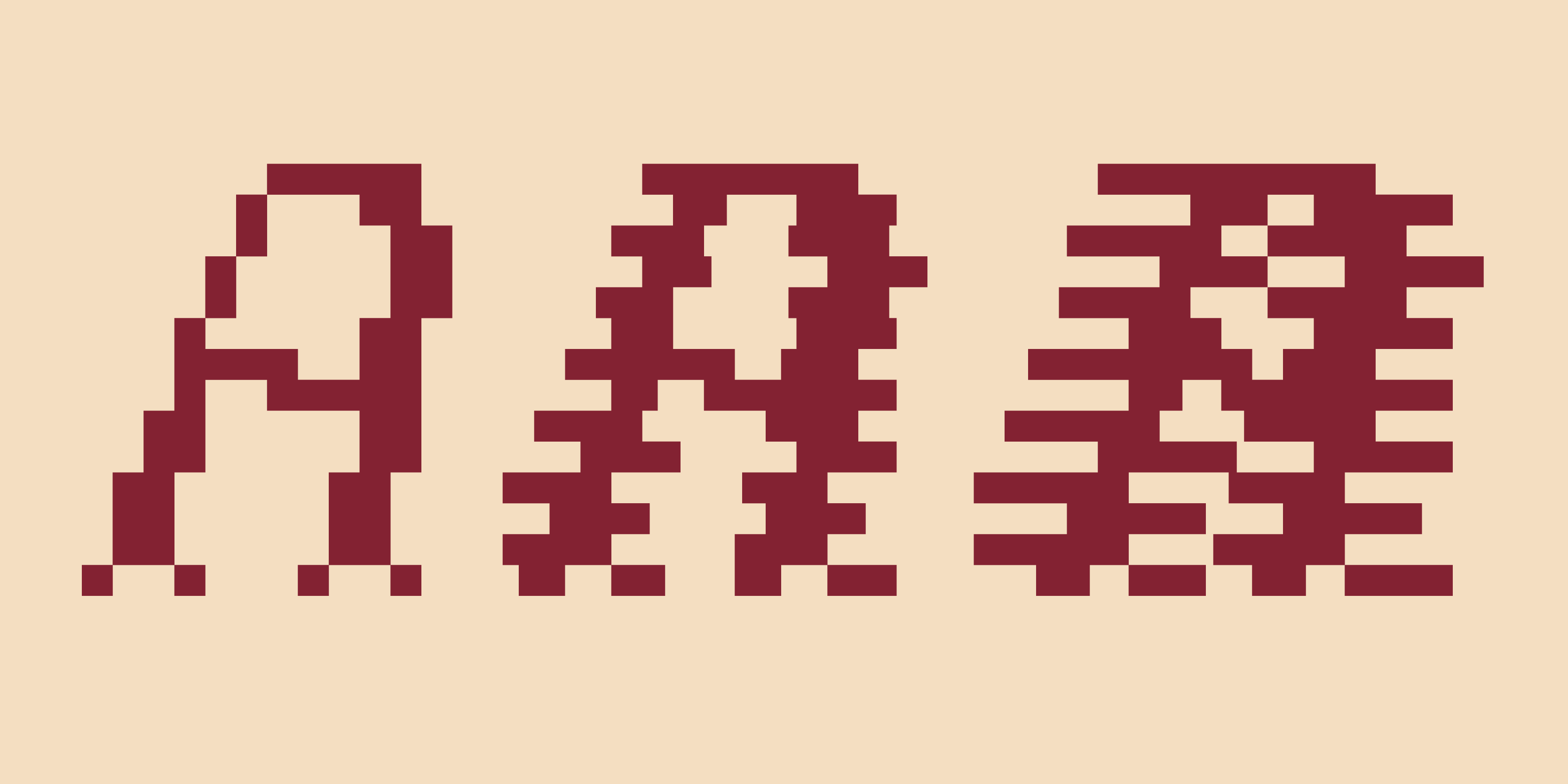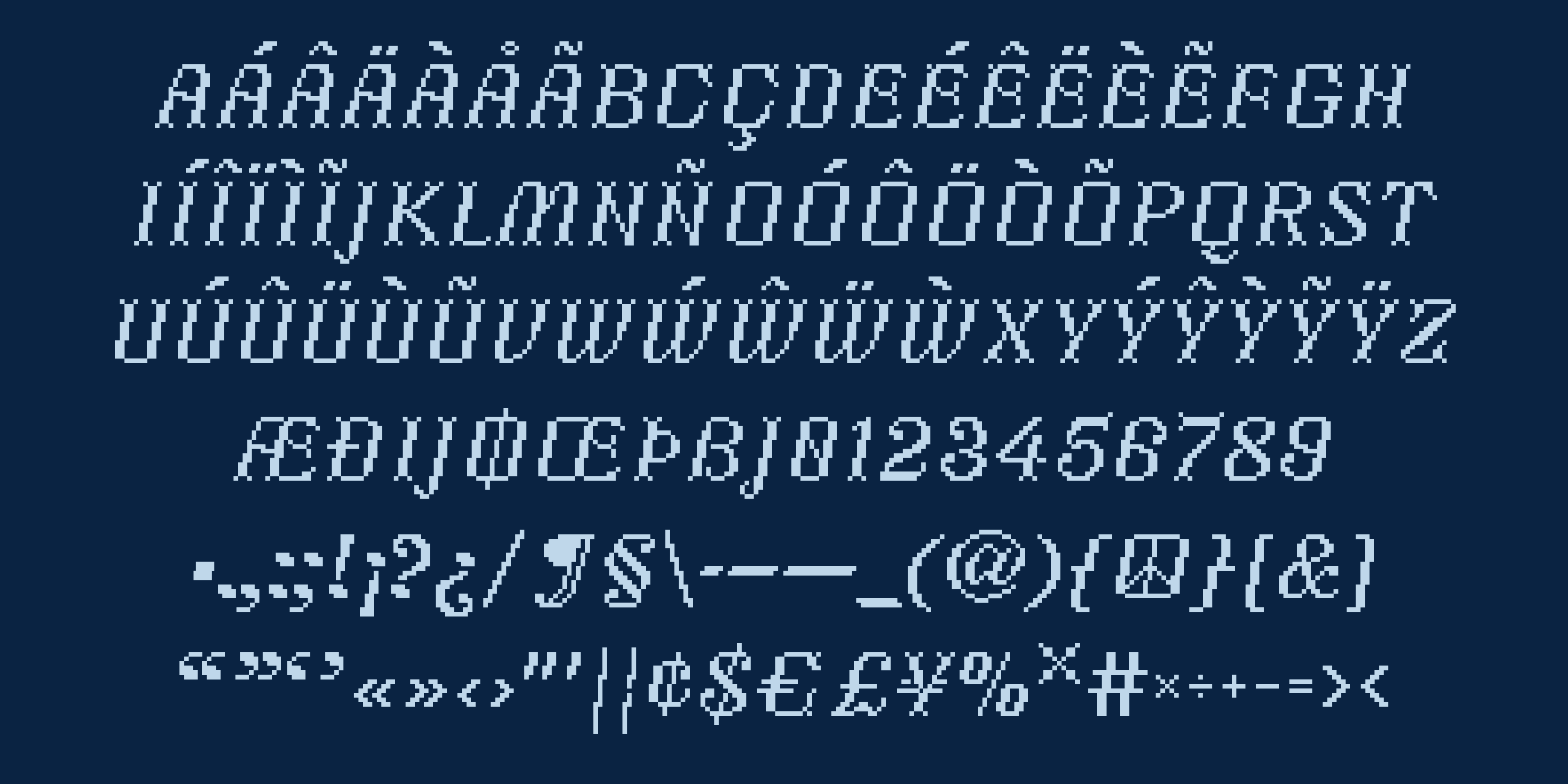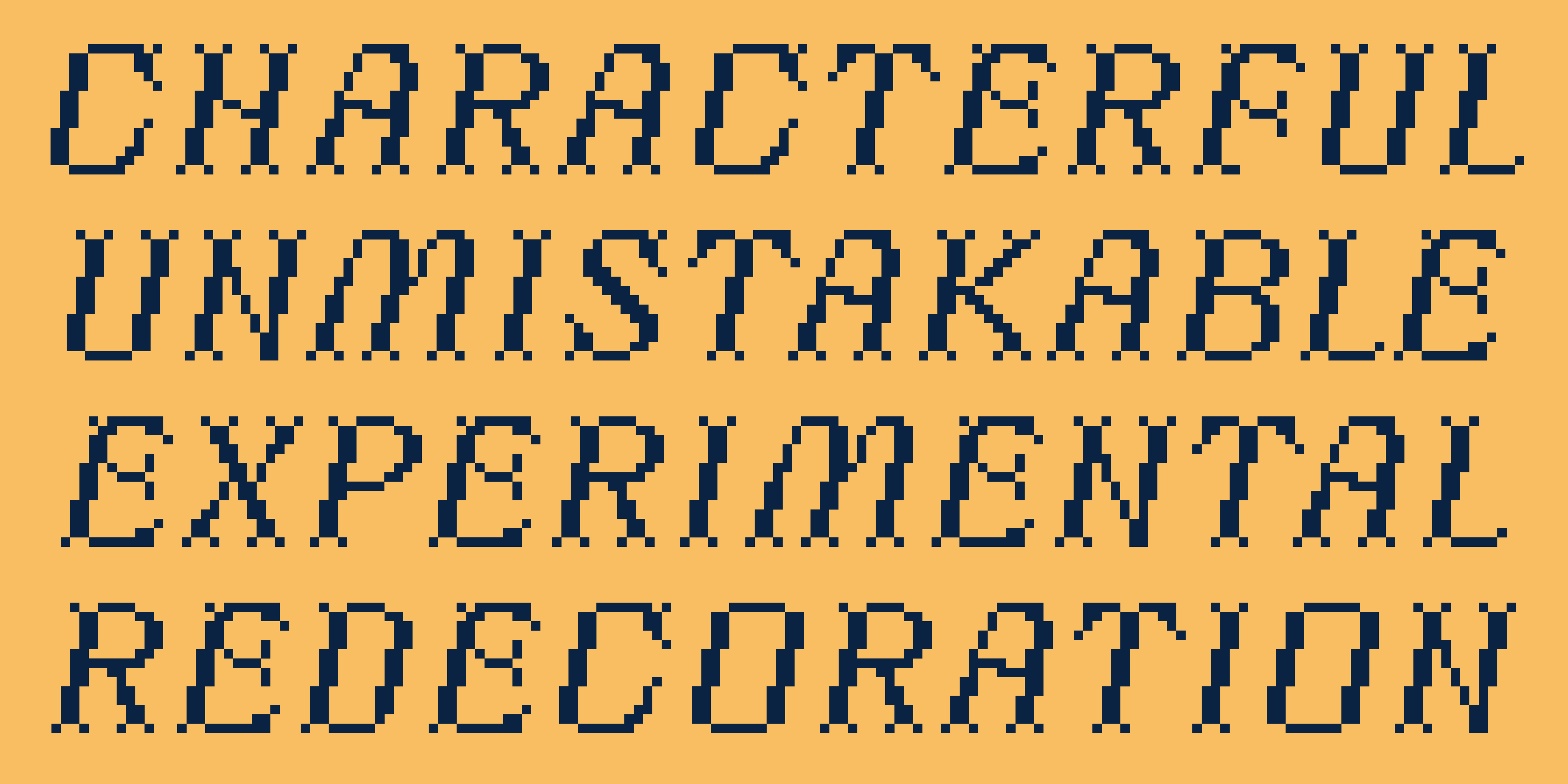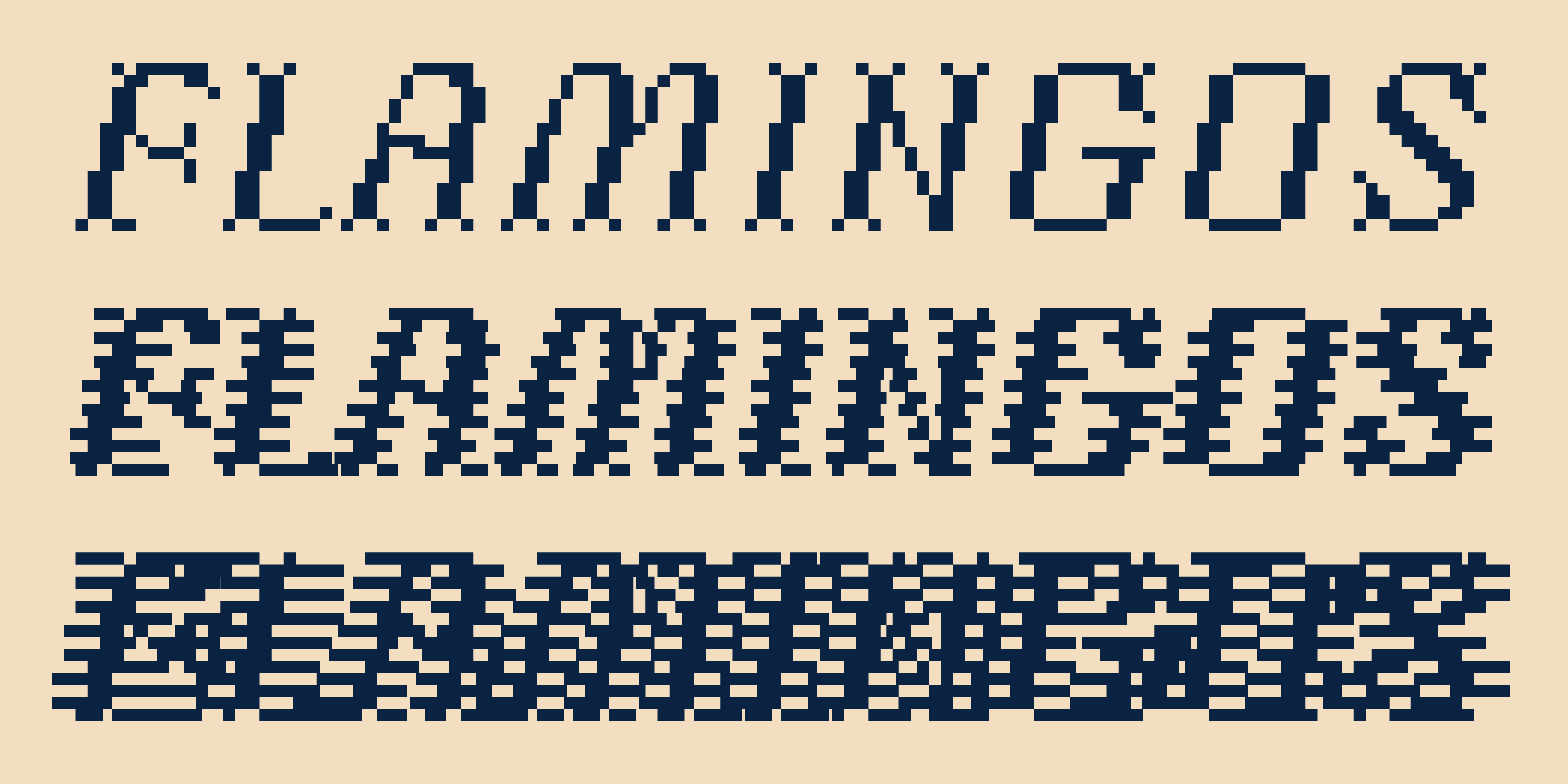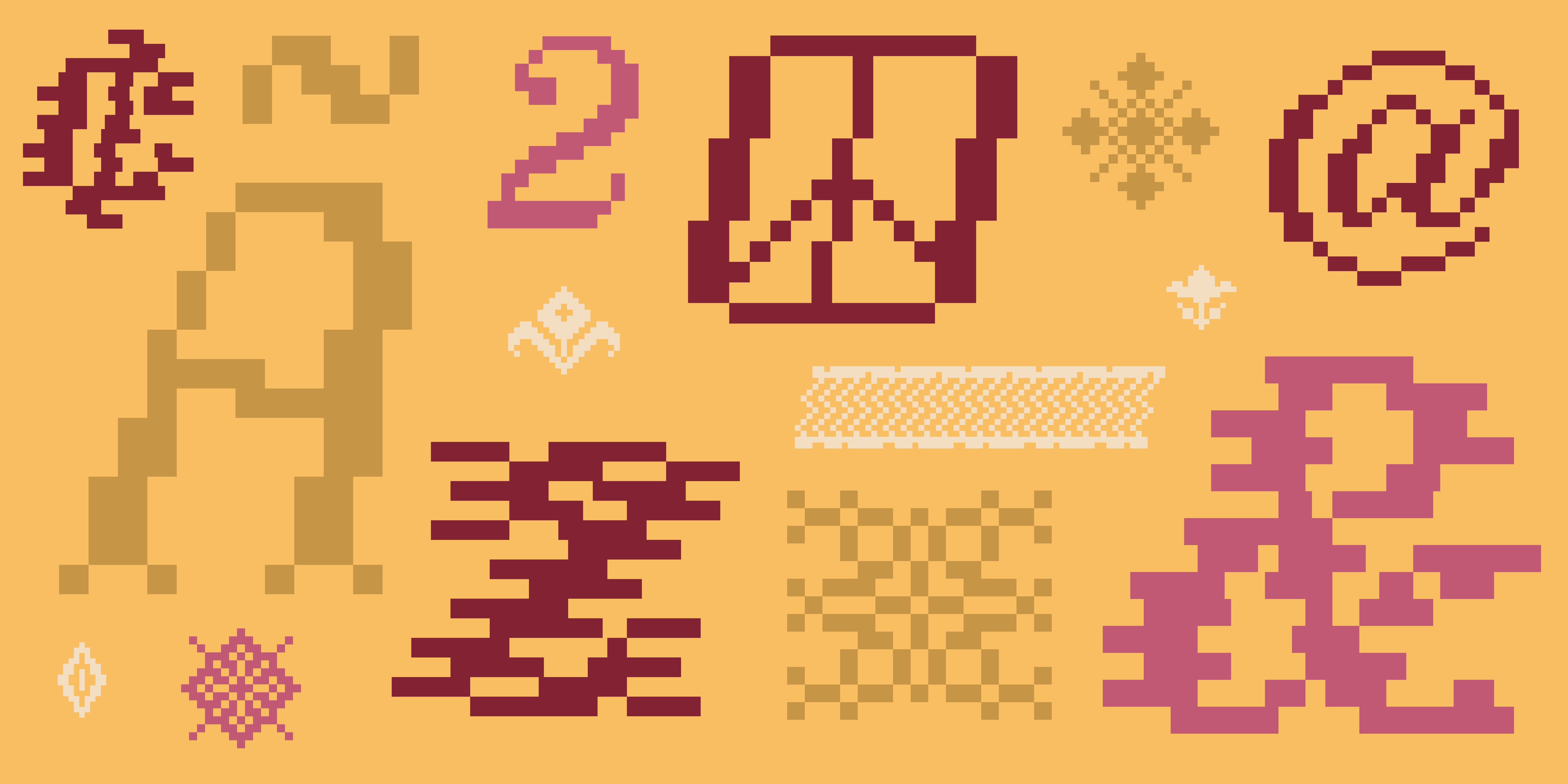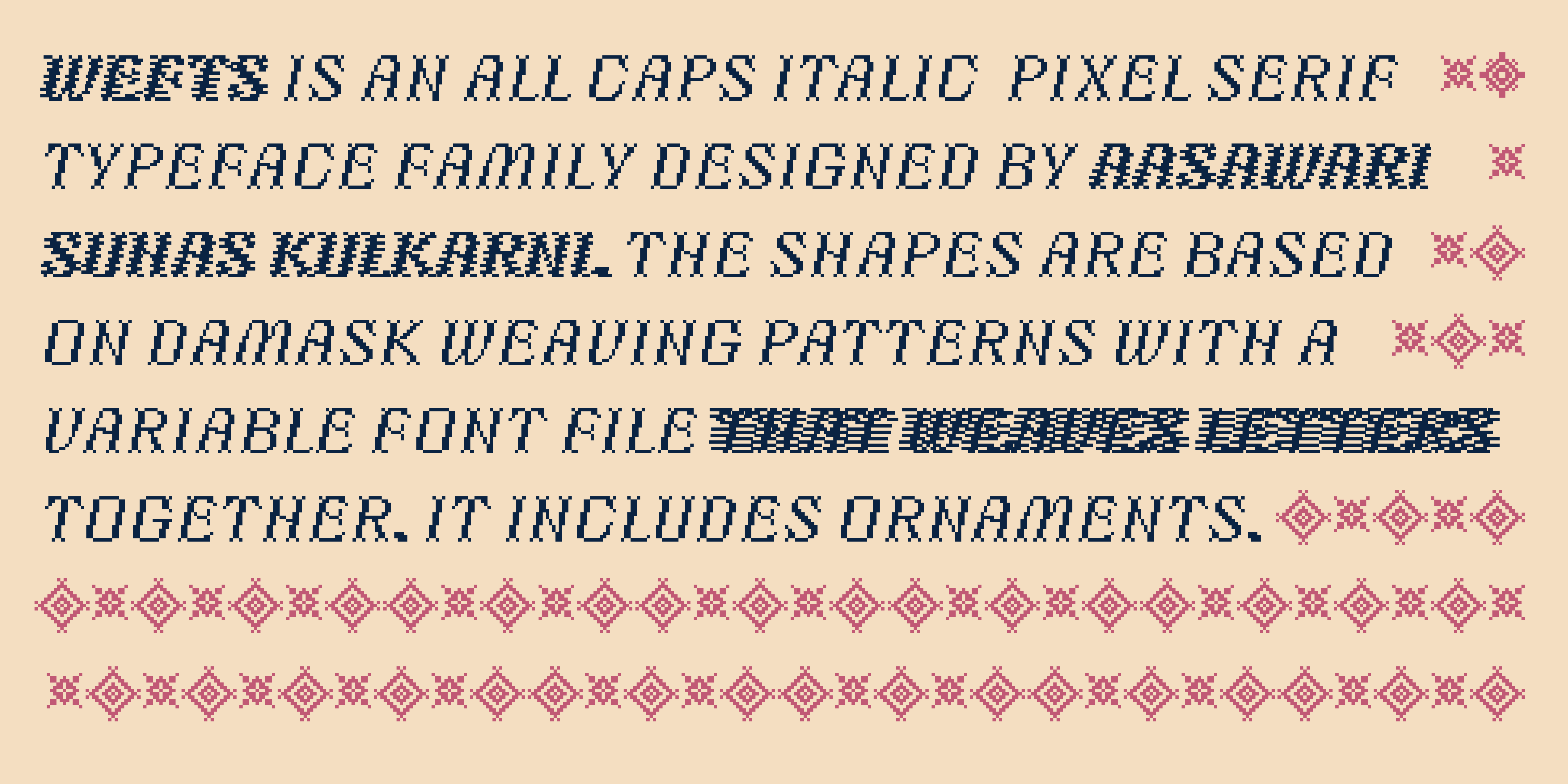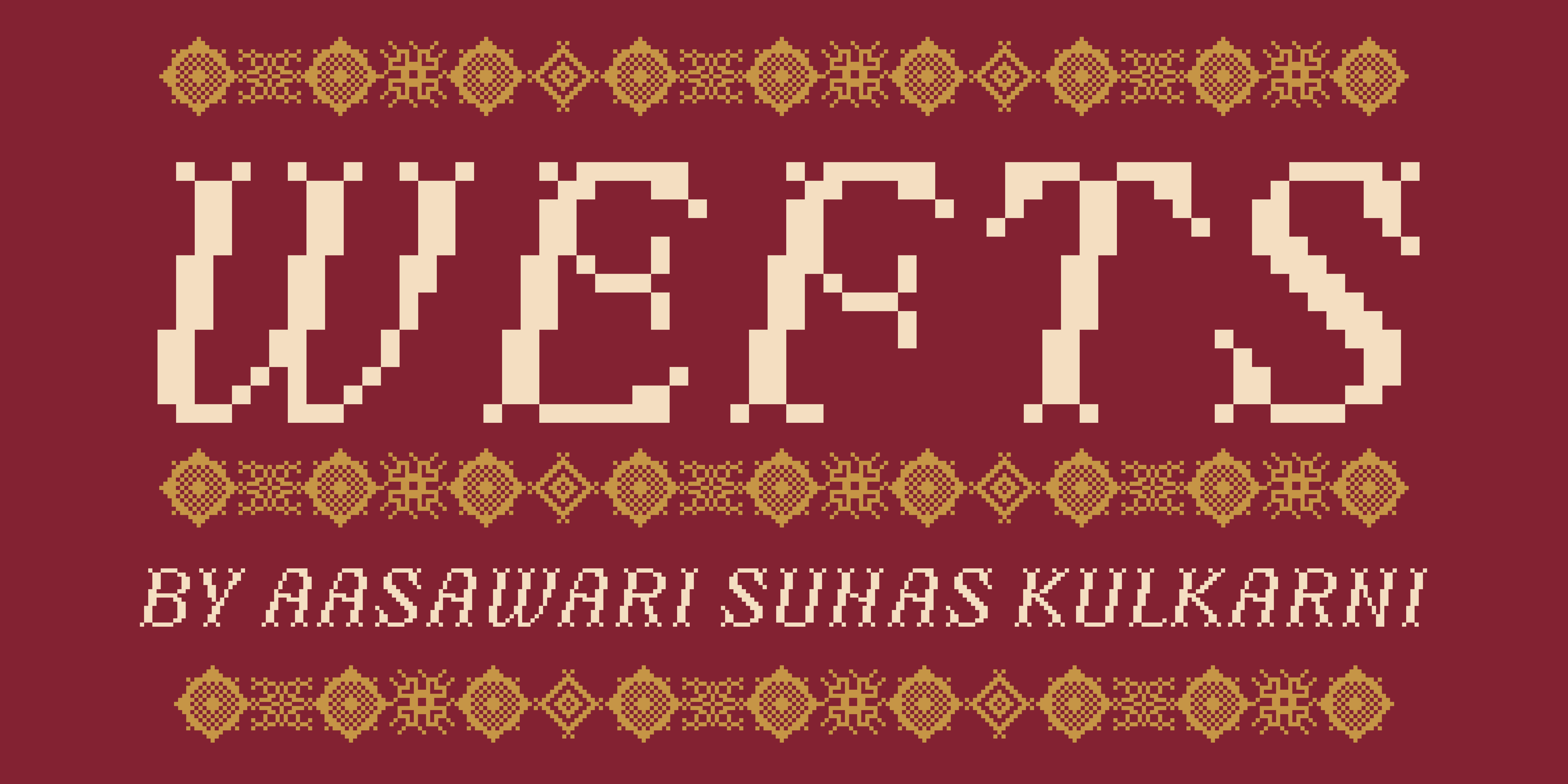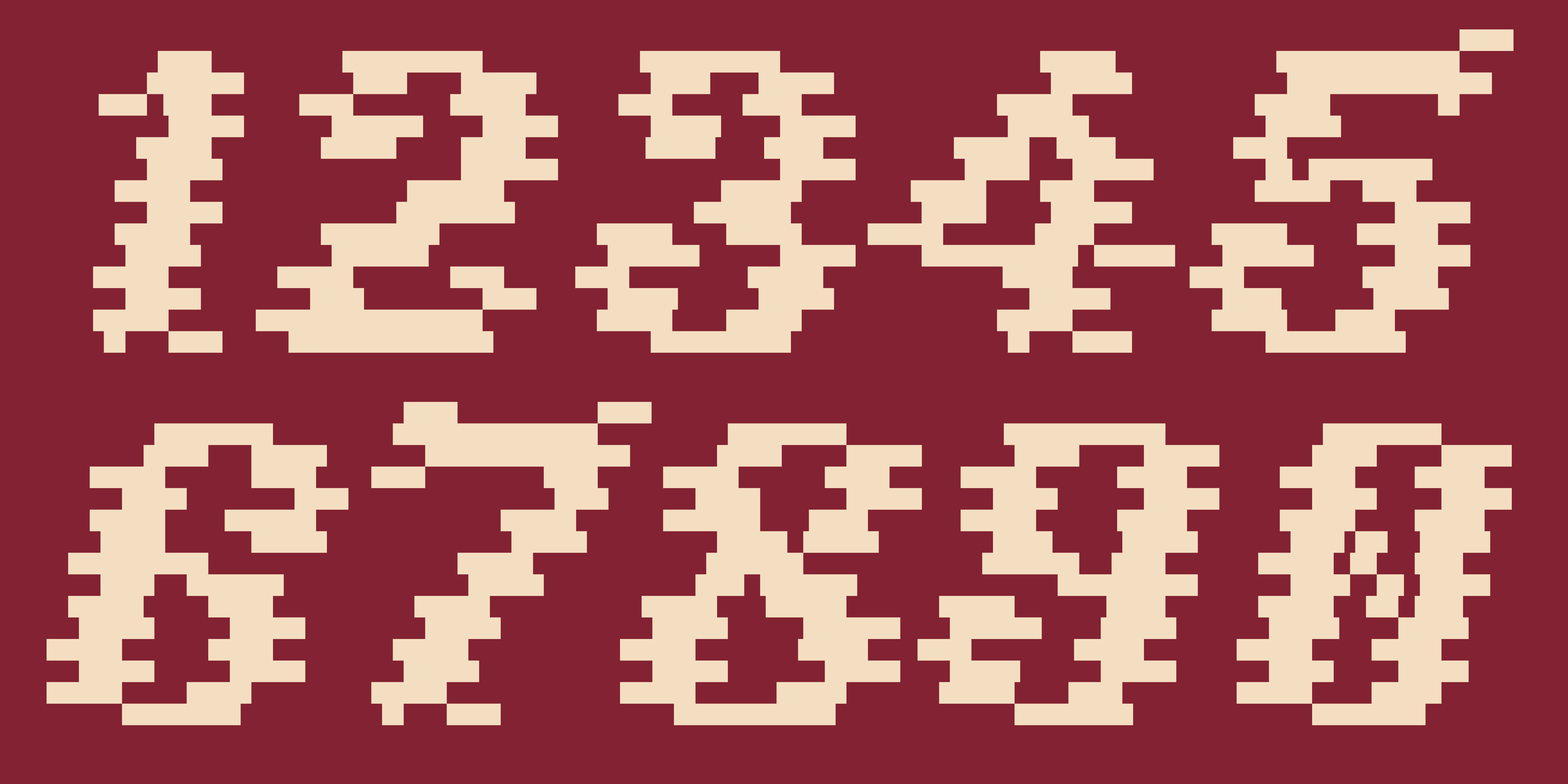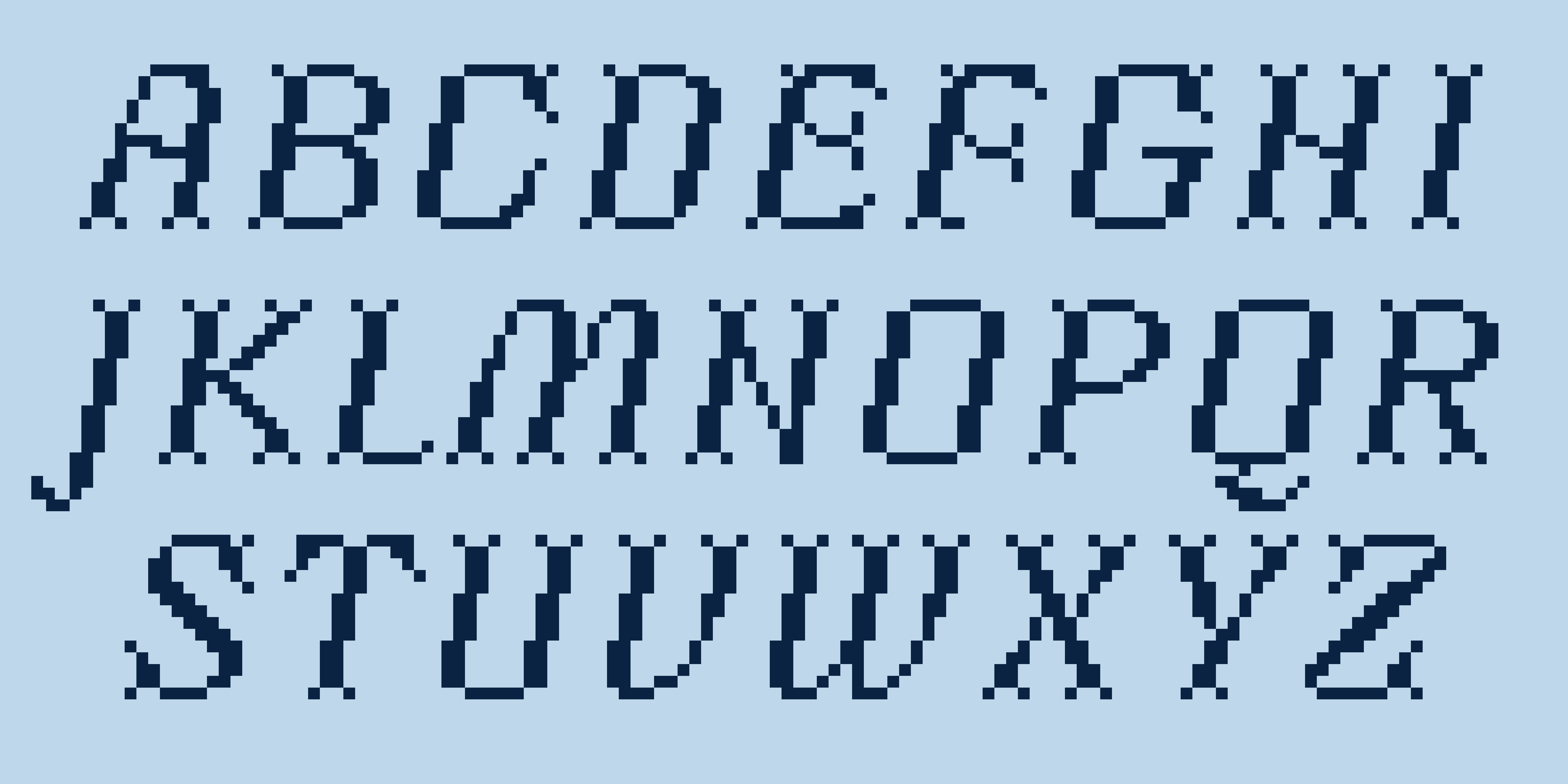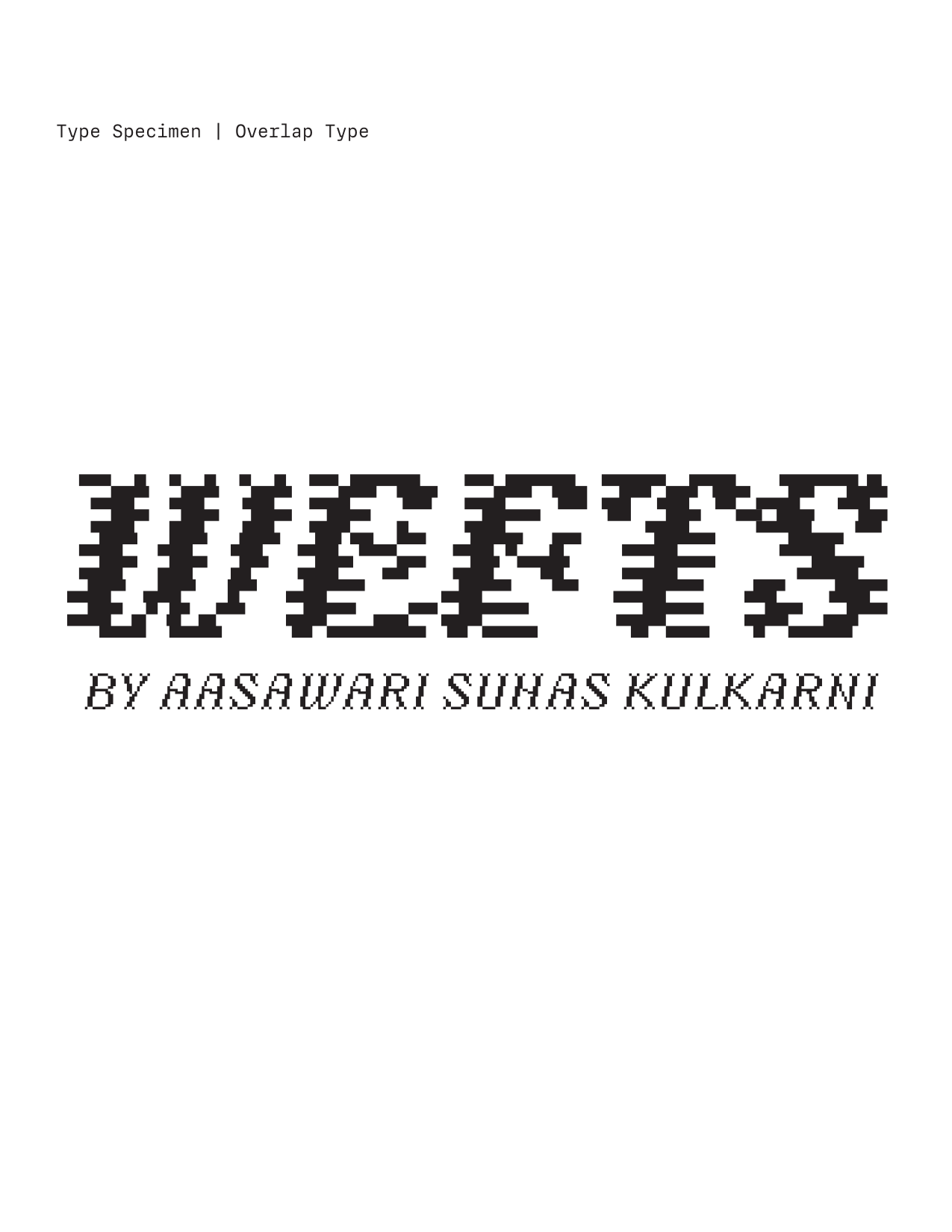
Wefts Collection
Wefts
Regular Weaving Woven Ornaments Regular Ornaments Weaving Ornaments WovenWefts is a slanted all-caps typeface designed by Aasawari Kulkarni to simulate the process of weaving by interlapping horizontal strokes. Initially inspired by the pixel-like patterns of the versatile Damask weaving, this variable typeface features a width axis that weaves individual letters in a textured pattern through the process of wefting. The static styles include a 'weaving' weight, a 'woven' weight, and a regular weight, along with a set of ornaments and borders. The furthest end of the axis is fully woven and plays with legibility as a tool to feel more like the texture of weaving rather than readable words. You get the legibility in the Regular–Weaving spectrum, and then it starts breaking down into a woven pattern. This pixel typeface treats modularity as a starting point to warp and weft individual pixels that act as digital threads, but also considers the in-betweens in the process of integration to form weaves. Overlap it, use it for ornamentation, patterns, textures, or for tactility.